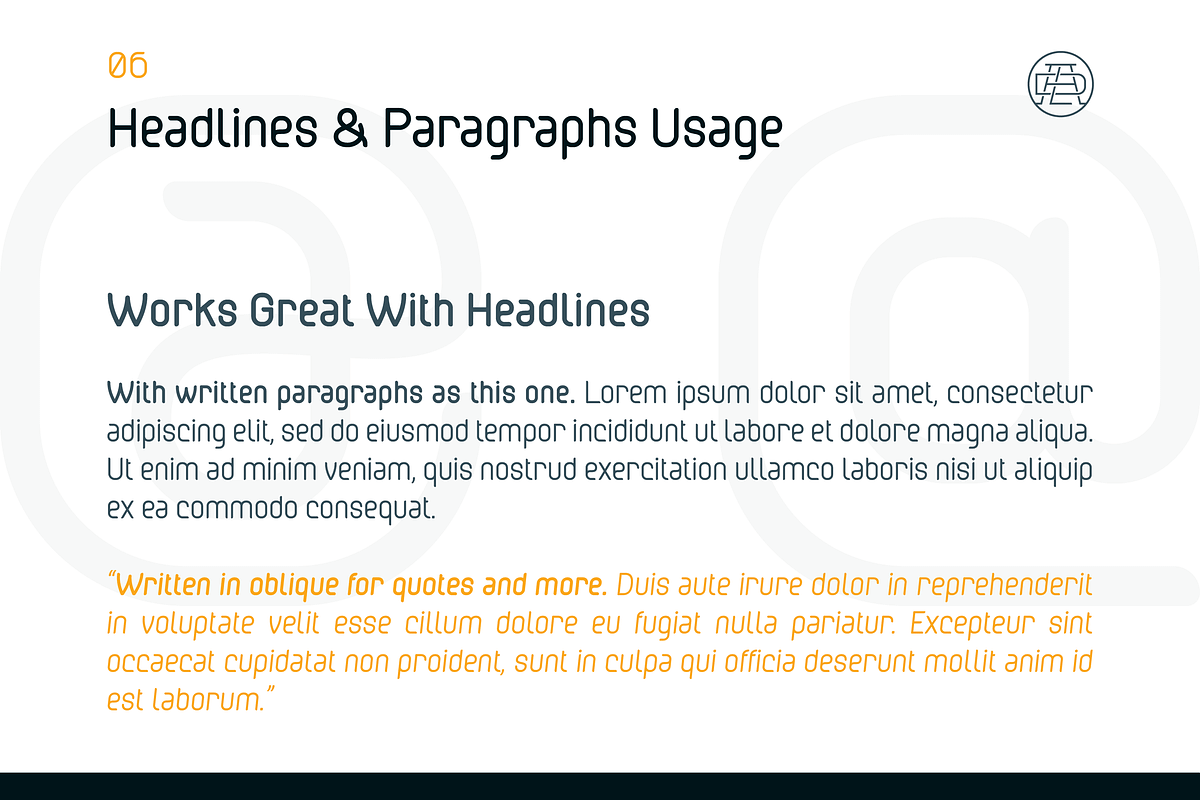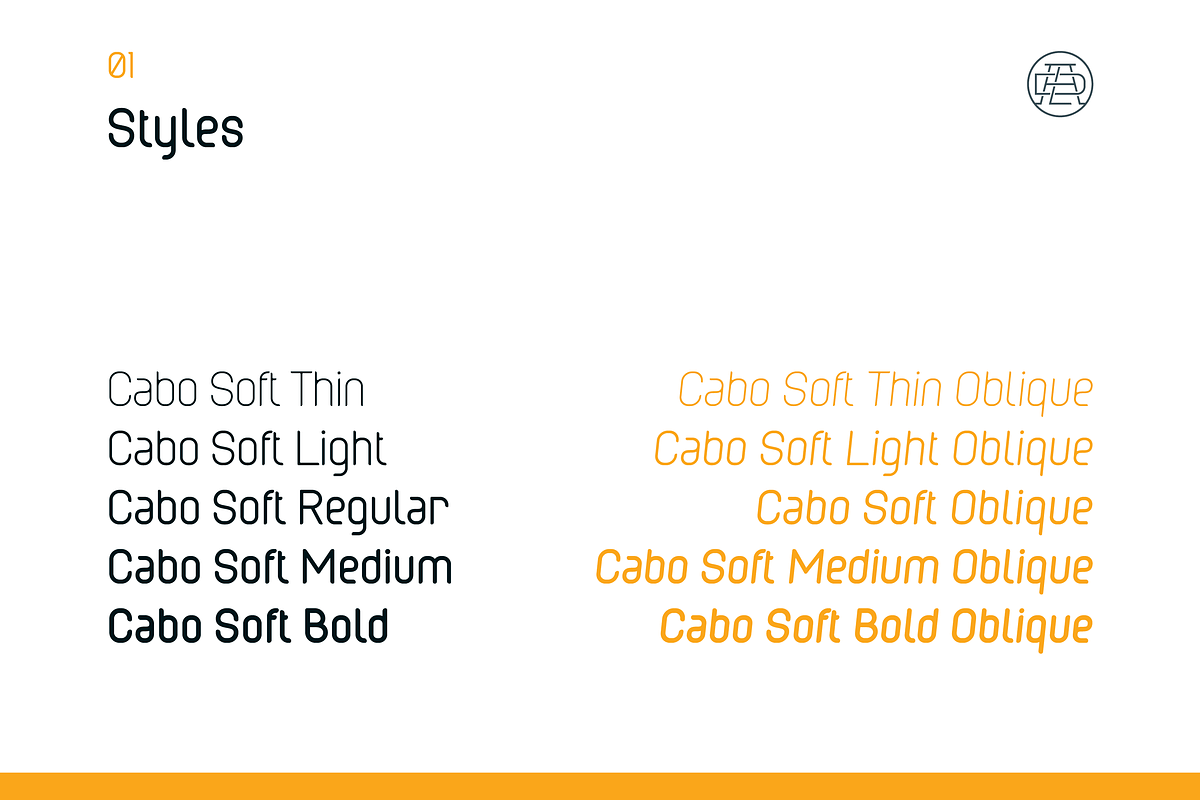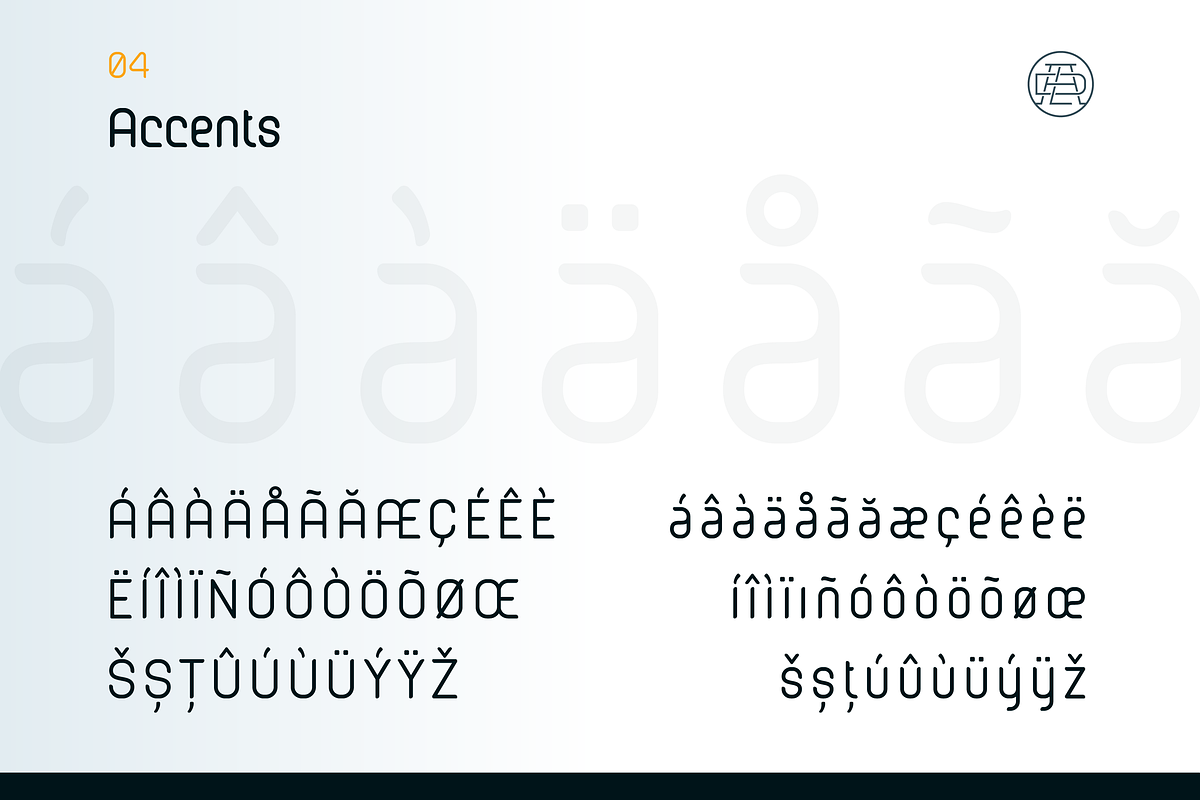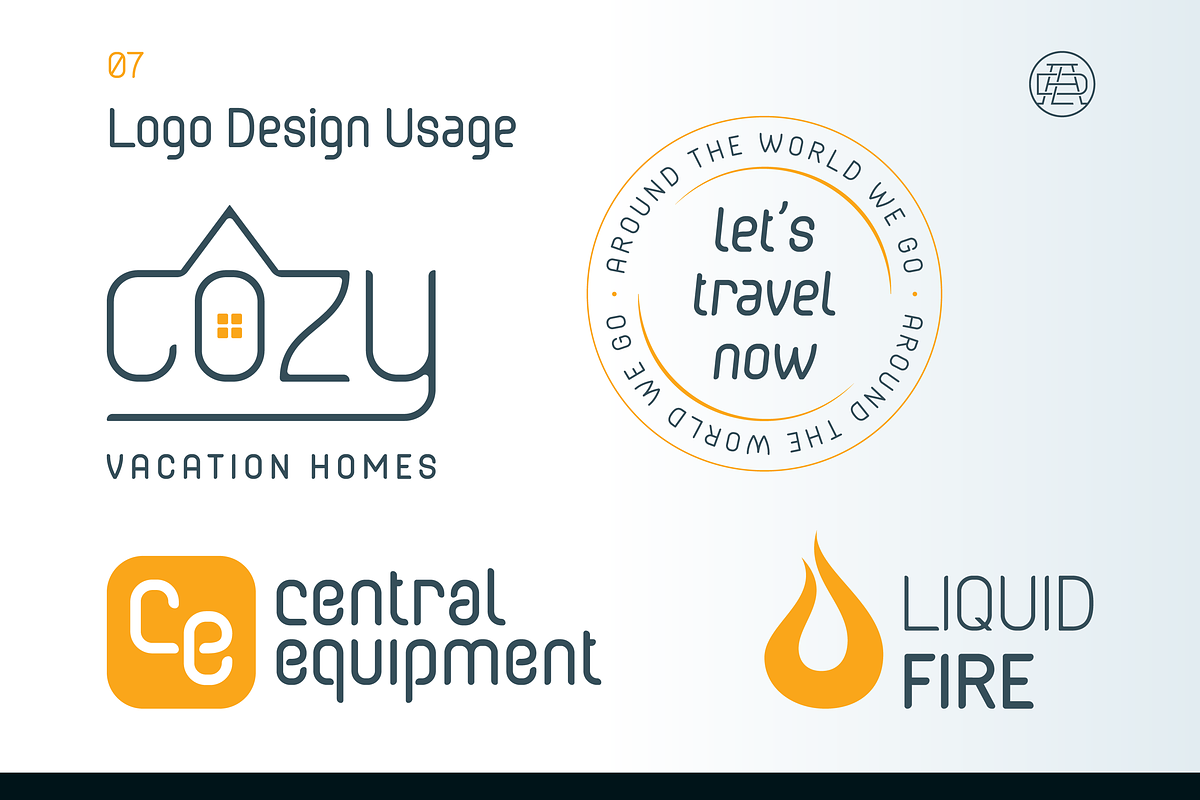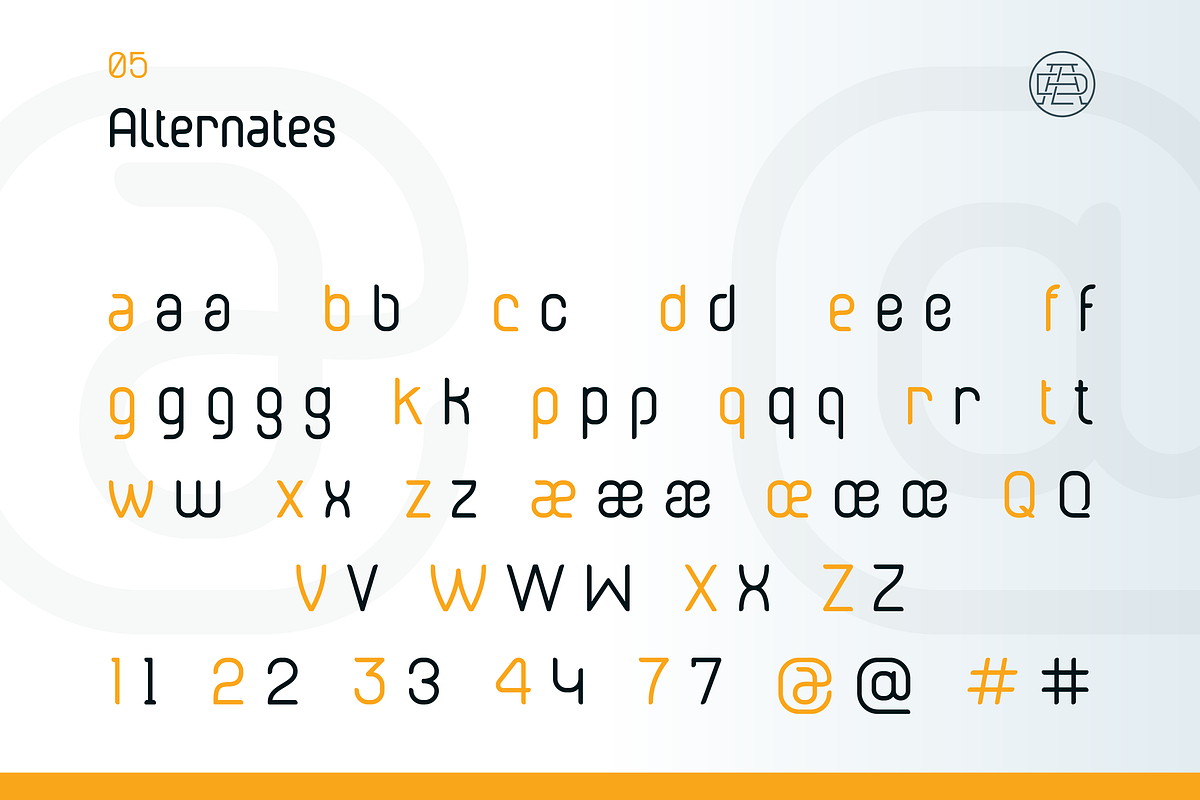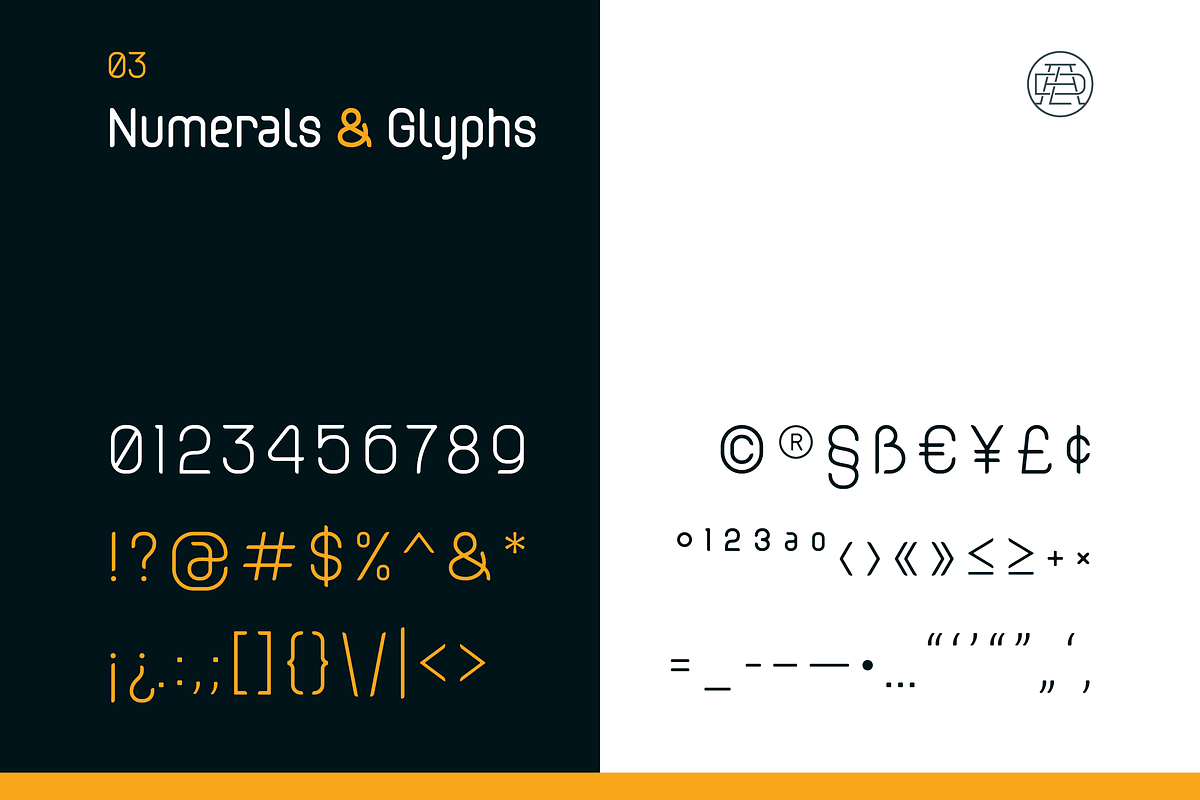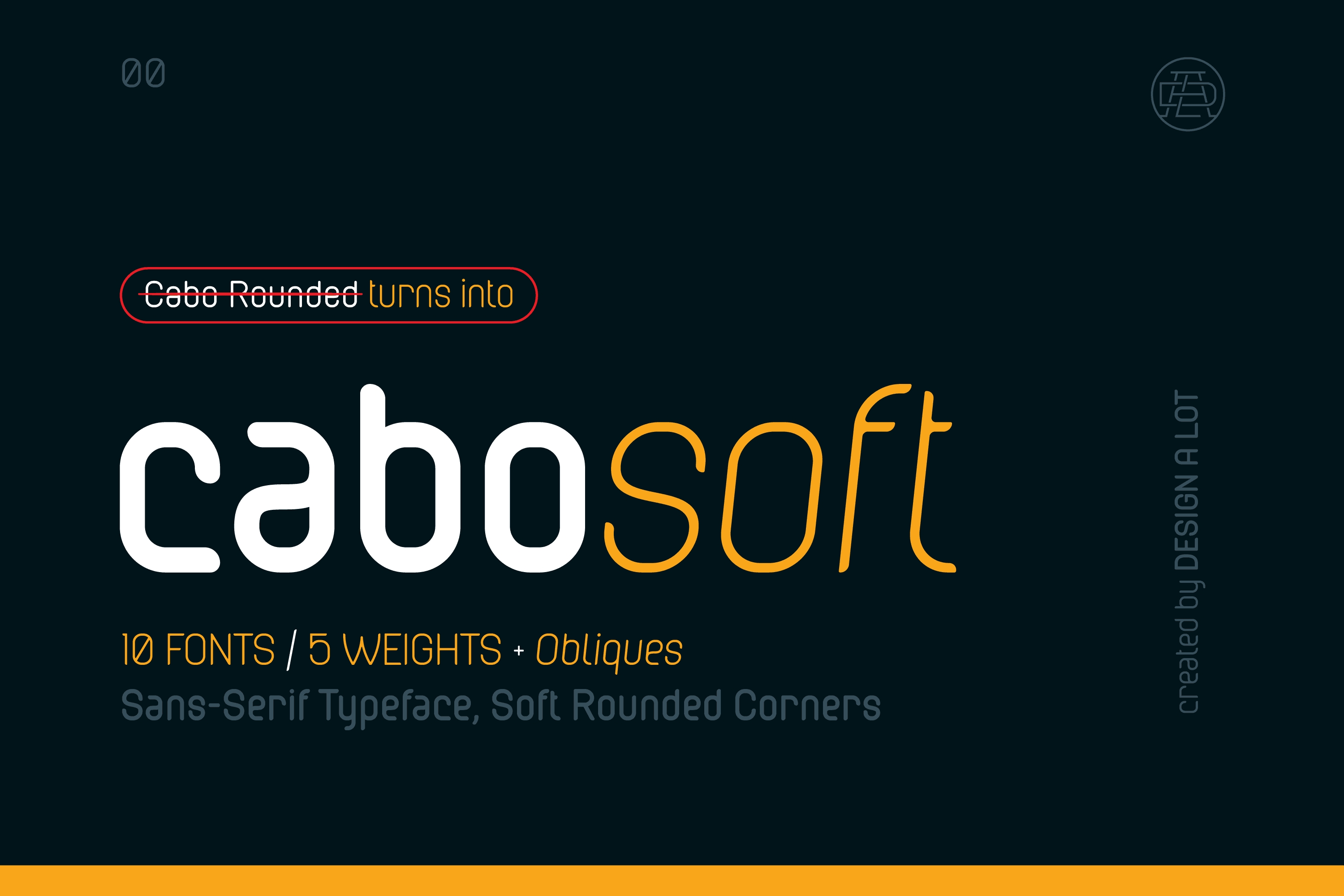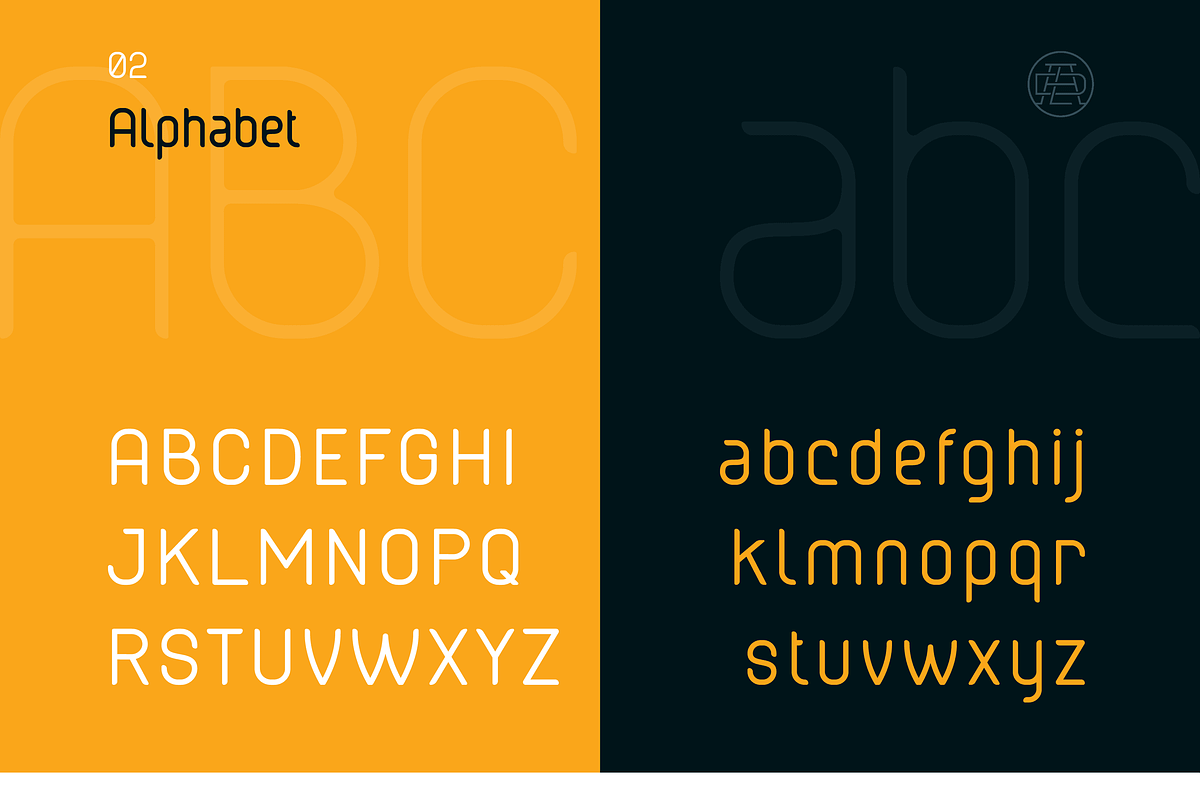
Cabo Soft Typeface
Cabo Soft is the 2.0 version of our original Cabo Rounded Typeface, created back in 2015. With this new version, Cabo Soft, we have brought multiple upgrades and updates compared with the original version. Some of those consist in the addition of more glyphs and accents, alternate designs for many of the glyphs (including an alternate for @, #, some of the numbers and more), and most importantly, we have done a slight update in the design of the letters, which we'll give more details in the following paragraphs.
Each of the style of our Cabo Soft Typeface includes a unique design with a soft and rounded style. It includes the entire letters, numbers, glyphs and accents of the Latin alphabet, like this:
- Basic alphabet in uppercase and lowercase: Aa Bb Cc Dd Ee Ff Gg Hh Ii Jj Kk Ll Mm Nn Oo Pp Qq Rr Ss Tt Uu Vv Ww Xx Yy Zz.
- Numbers: 0 1 2 3 4 5 6 7 8 9.
- Glyphs: !?@#$%^&* ¡¿.:,;[]{}/| ©®§ß€¥£¢ °¹²³ªº‹›«»≤≥+× =_-–—•…“‘’“”„‘‚.
- Accents: Á  À Ä Å Ã Ă Æ Ç É Ê È Ë Í Î Ì Ï Ñ Ó Ô Ò Ö Õ Ø Œ Š Ș Ț Û Ú Ù Ü Ý Ÿ Ž á â à ä å ã ă æ ç é ê è ë í î ì ï ı ñ ó ô ò ö õ ø œ š ș ț ú û ù ü ý ÿ ž.
- And alternates for the following glyphs: a b c d e f g k p q r t w x z æ œ Q V W X Z 1 2 3 4 7 @ #.
All of the fonts available in this typeface can adapt to any style and are perfect with written text, headlines, logo design, branding and more.
The complete Cabo Soft Typeface includes the following weights and styles:
- Cabo Soft Thin Font.
- Cabo Soft Thin Oblique Font.
- Cabo Soft Light Font.
- Cabo Soft Light Oblique Font.
- Cabo Soft Regular Font.
- Cabo Soft Oblique Font.
- Cabo Soft Medium Font.
- Cabo Soft Medium Oblique Font.
- Cabo Soft Bold Font.
- Cabo Soft Bold Oblique Font.
The main style and thought behind our Cabo fonts has always been the rounded corners and the soft and welcoming vibe that it gives. It's friendly and familiar, but also modern and slightly elegant, especially the Thin and Light styles. With Cabo Soft we have worked on adding an extra touch to the design of the letters by working on the termination edges of each letter. If Cabo Rounded had an exact round termination for each letter, with Cabo Soft we have developed a unique non-equally rounded shape that is applied to all types of terminations for each letter.
This new design approach makes it have a more clean style, a more modern and unique look, but it also gives stylish, exclusivist and elegant vibes, while still being friendly and familiar.
Thanks to it's variety in weights and styles, you can use Cabo Soft in almost any design project. It works well with headlines and paragraphs, it's a perfect match for logo design and branding, but can also do wonders in videos, signage and many other elements.
The typeface covers most likely the entire Latin Alphabet, it comes with multiple design alternates for many of the letters, glyphs and numbers, with accents applied for all of the available alternates.
As a finishing note, with the help of our Cabo Soft typeface you can create an friendly and welcoming designs, as well as stylish, elegant and exclusivist. It has all the necessary glyphs and accents for any Latin Alphabet projects, and you can play around with all of the alternates to create unique designs right from the start.